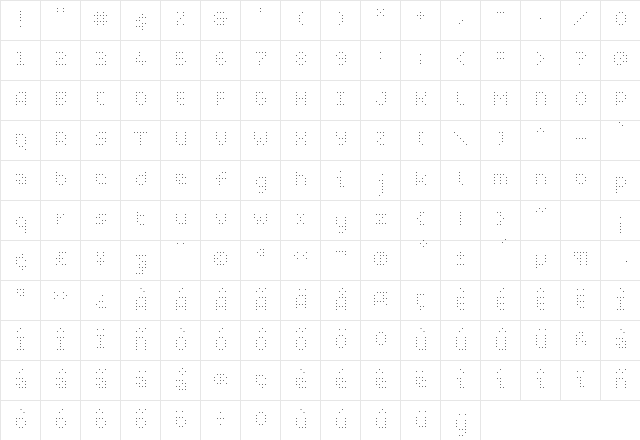
WC PIXHOLE Thin Bta Regular
Design Context for WC PIXHOLE Thin Bta Typeface
WC PIXHOLE Thin Bta is a composed and adaptable typeface that performs quietly and consistently across a wide range of design contexts. Its slender proportions lend an understated elegance to any composition.